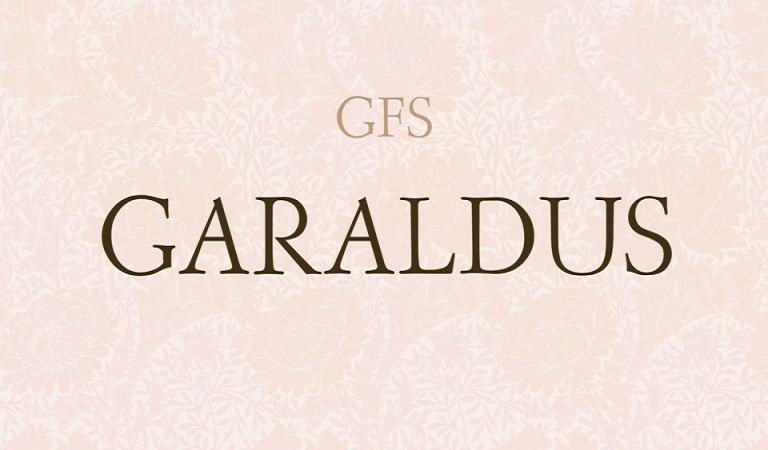
GFS Garaldus Serif Font
GFS Garaldus Serif Font is a minimalist luxury and gorgeous font that is both classically elegant and inherently modern. Made from font designer named Greek Font Society. This typeface is an old style display serif font, inspired by Venetian tradition of the sixteenth century. The font supports Latin and Greek languages.